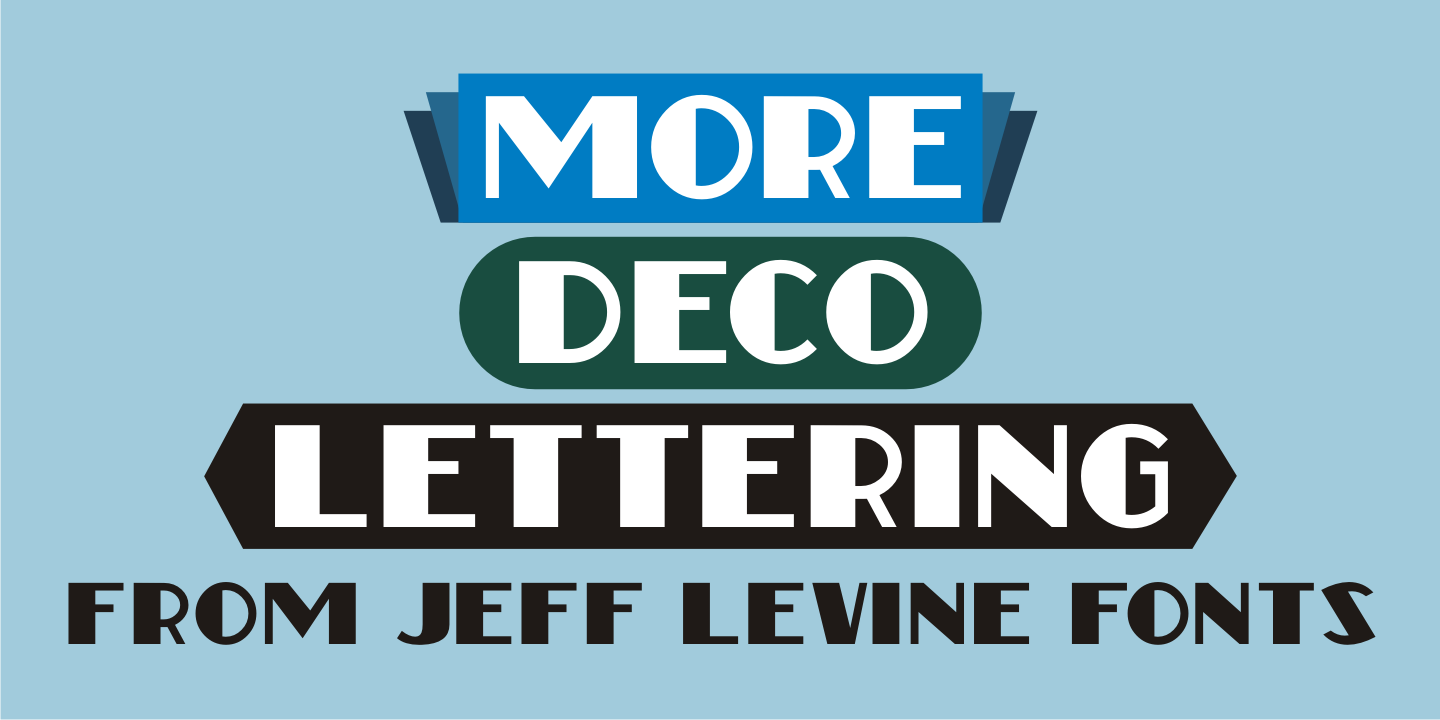
More Deco Lettering JNL is a art deco font published by Jeff Levine Fonts.
Occasionally font projects are started, but then set aside for other designs and are subsequently forgotten for a while. Such is the case of More Deco Lettering JNL; a bold thick-and-thin sans modeled from vintage source material.